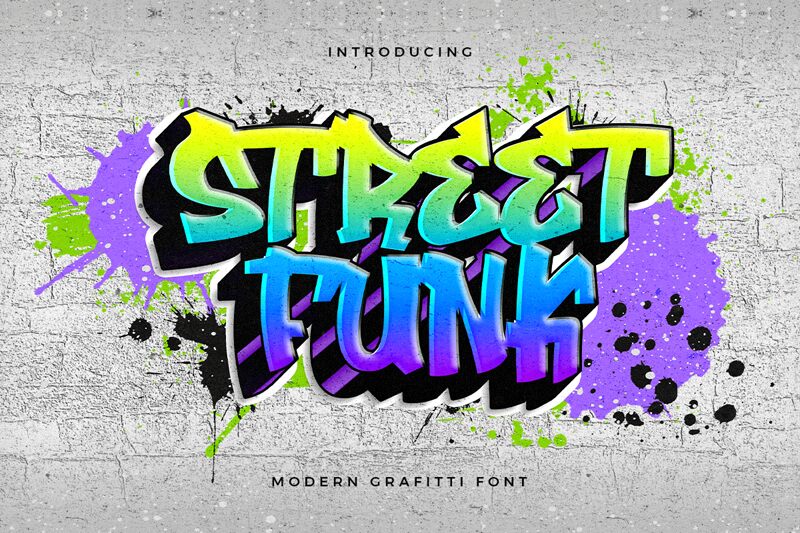
Streetfunk Graffiti, a captivating font created by Kong Font, exudes a raw, urban energy that captivates the senses. With its bold, dynamic strokes and gritty texture, this font evokes a sense of rebellious expression, making it an ideal choice for projects seeking to convey a rebellious, street-inspired aesthetic.
Streetfunk Graffiti's alluring visual style lends itself beautifully to a wide range of applications, from eye-catching event branding and album covers to impactful poster designs and urban-themed apparel. Its versatility allows designers to infuse their work with a powerful, unapologetic flair that resonates with audiences seeking an authentic, street-level experience.